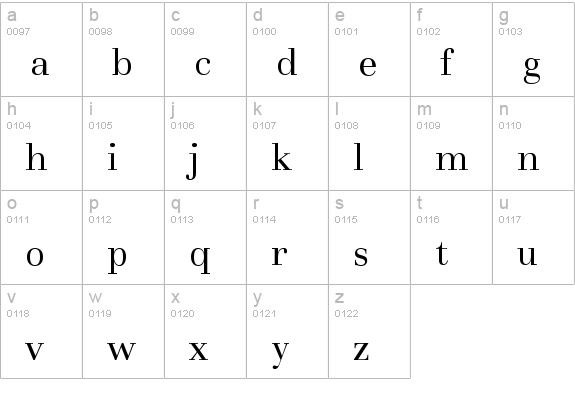
Basilia T Regular Font Details
Basilia T Regular is the standard, neutral variant in the Basilia typeface family \xE2\x80\x94 well suited to general body text, paragraphs, and standard typographic work.
Basilia T Regular font is a classic and elegant typeface that exudes sophistication and style. With its clean lines and timeless appeal, this font is perfect for a wide range of design projects, from branding to editorial layouts. The sleek and modern design of Basilia T Regular font makes it a versatile choice for both digital and print applications. One of the best things about Basilia T Regular font is that it is available for free download at FontsMarket.com. This means that you can easily access this high-quality font and use it in your projects without any cost. Whether you are a designer looking for a new go-to font or just someone who appreciates beautiful typography, Basilia T Regular font is sure to impress with its refined aesthetic and professional quality. Download it now and elevate your designs with this stunning typeface.